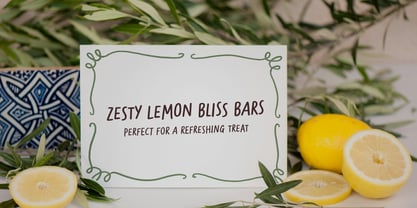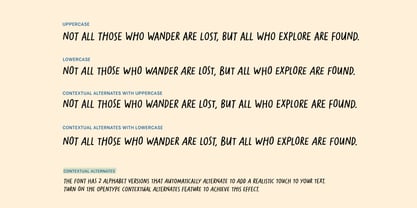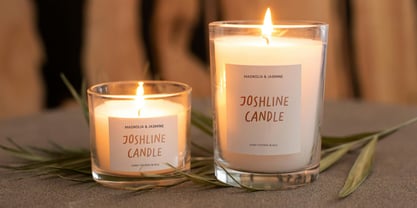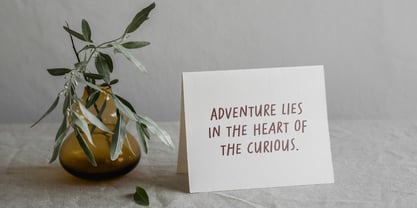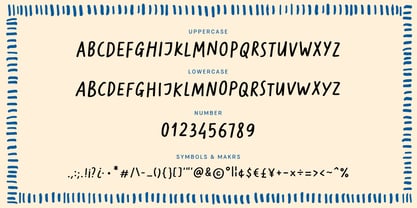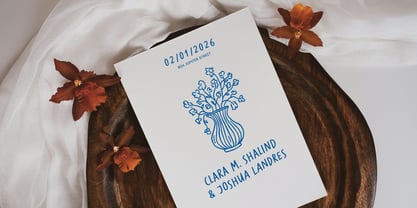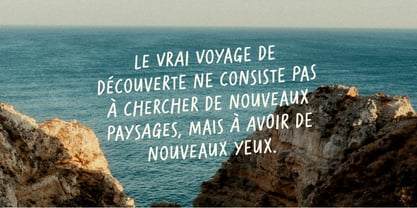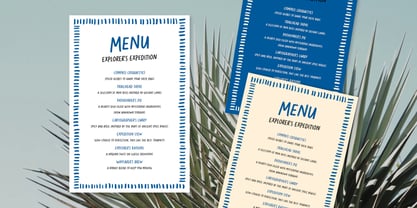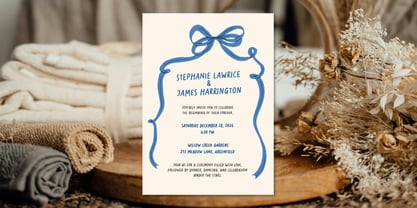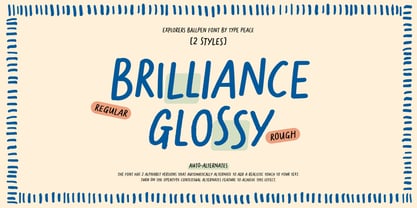
Explorers Ballpen
The Explorers Ballpen Font Family was designed by Hai Anh Nguyen and published by type peace. Explorers Ballpen contains 2 styles and family package options. More about this family
Explorers Ballpen is a multilingual, all-caps handwritten font that brings the charm of authentic ballpoint pen strokes to your designs. Featuring two styles - Regular and Rough - it offers versatility for both clean and textured looks. Enable the Contextual Alternates feature to alternate between different letter versions, giving your text an authentic and realistic handwritten feel.
type peace is an independent type foundry specializing in expressive, handmade typography. Born from a deep-rooted passion for letterforms and the art of calligraphy, each typeface is the result of constant experimentation with diverse tools—from traditional ink and brushes to digital and unconventional techniques. By preserving the subtle imperfections of the hand-drawn stroke, type peace crafts approachable, soulful fonts that bring warmth and authenticity to branding, packaging, and creative storytelling.